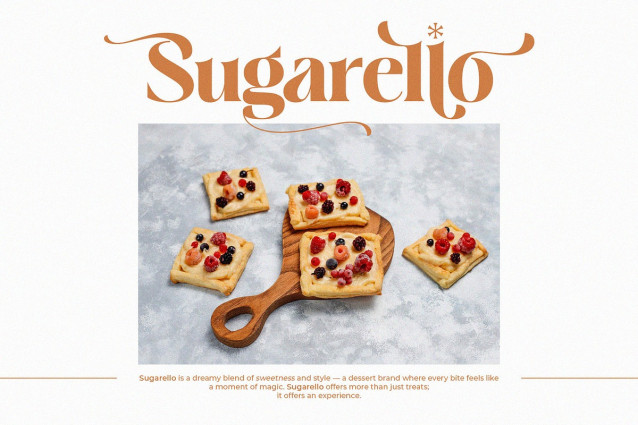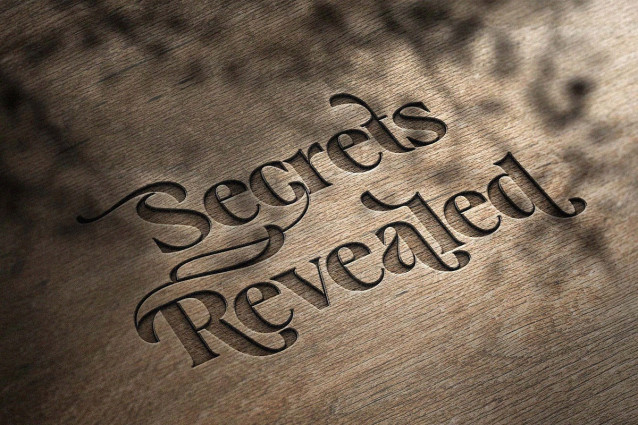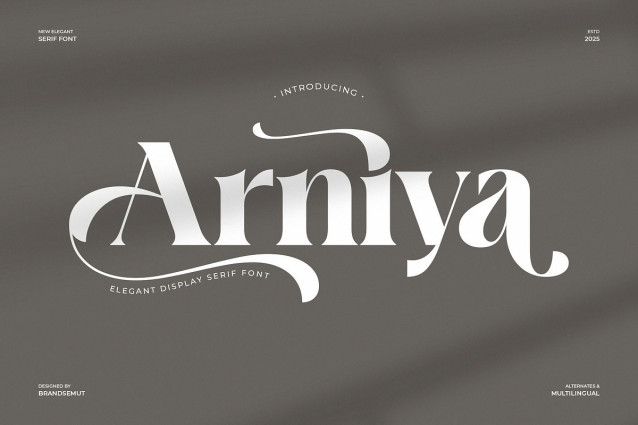
Arniya Font
Arniya Font is an elegant display serif font that combines timeless sophistication with a stylish modern twist. Designed with graceful curves, sharp details, and artistic alternates, Arniya is the perfect choice for projects that require a luxurious and professional typographic style.
This typeface blends classic serif elegance with a contemporary edge, making it versatile for branding, editorial layouts, packaging, social media, and creative design projects. Its bold yet refined look ensures that every design stands out with confidence and class.